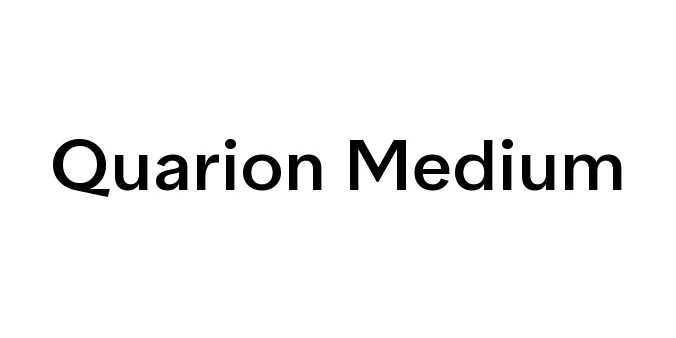
Quarion Medium
Designed by René Bieder
Quarion Medium is a contemporary geometric sans-serif typeface meticulously crafted by the renowned designer René Bieder. This font is part of a larger family that draws inspiration from the modernist movements of the early 20th century, blending structural precision with a modern, approachable flair. The Medium weight is particularly valued for its ability to command attention without being overly heavy, making it an essential tool for professional typographers.
The design features geometric foundations enhanced by subtle humanist details, which prevent the font from feeling overly clinical. With its generous x-height and open counters, Quarion Medium provides superior legibility in both digital interfaces and high-end print production. It represents a perfect synthesis of functionalism and aesthetic appeal, suitable for high-stakes design environments.
Quarion Medium Best Uses
Optimized for high-readability headers and digital body content.
Creates a sophisticated and professional identity for modern startups.
Maintains clarity on low-resolution displays and small mobile screens.
Highly effective for impactful headlines in print and digital ads.